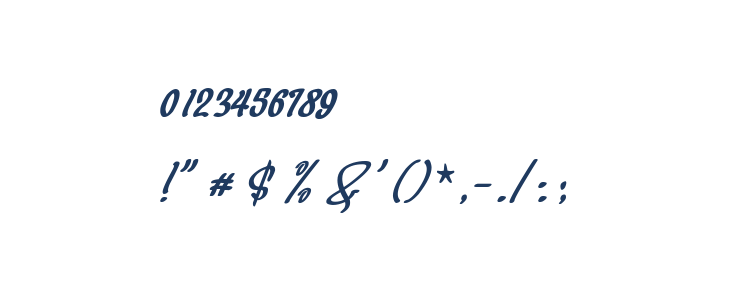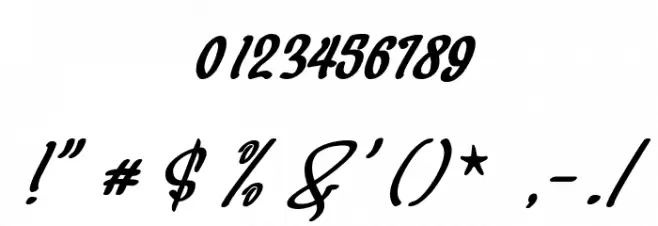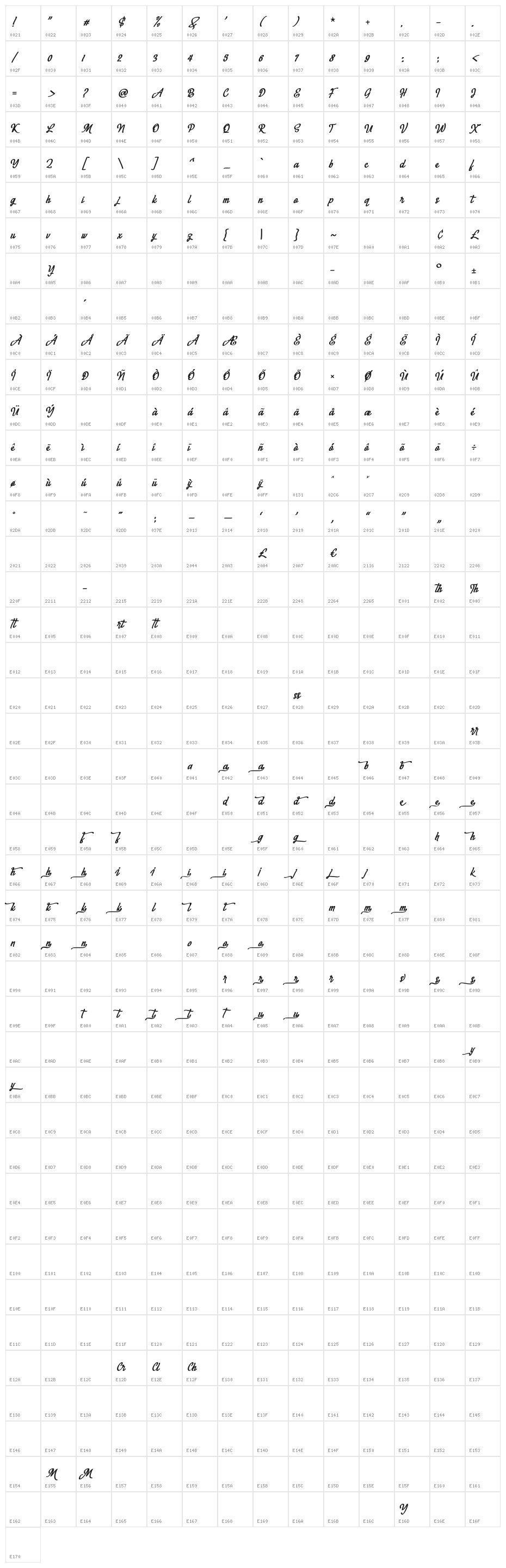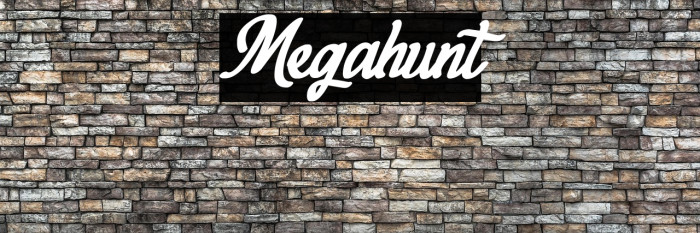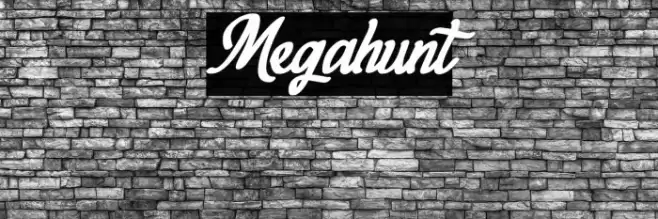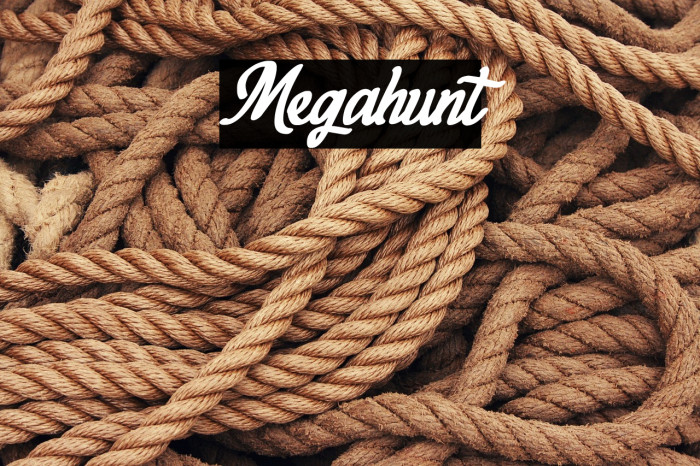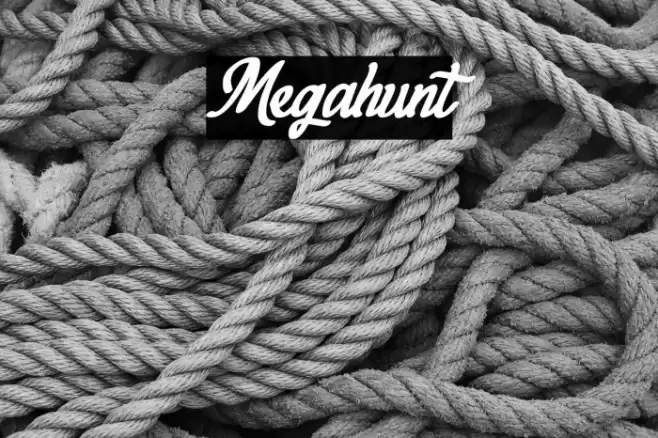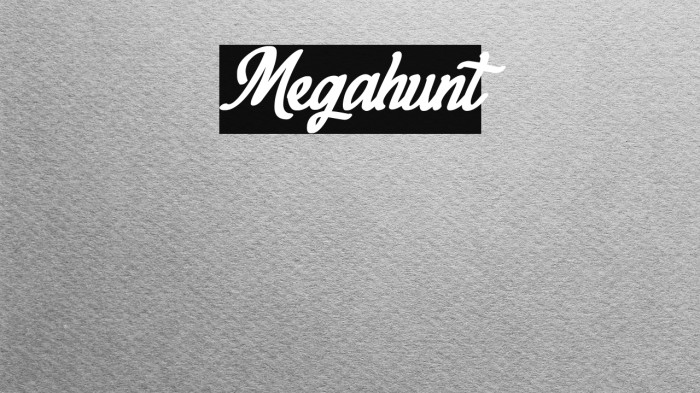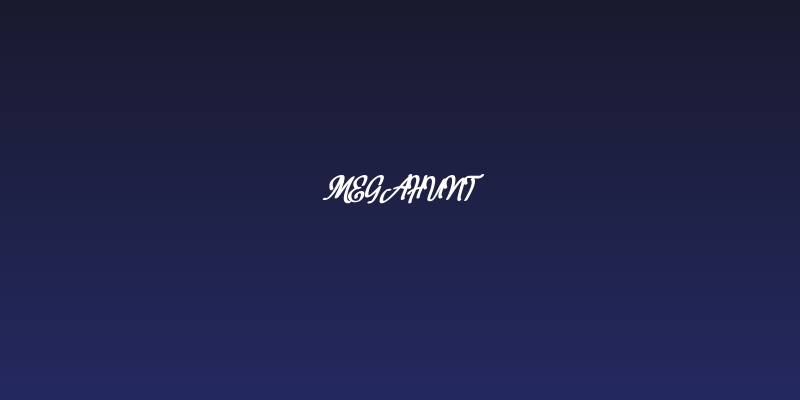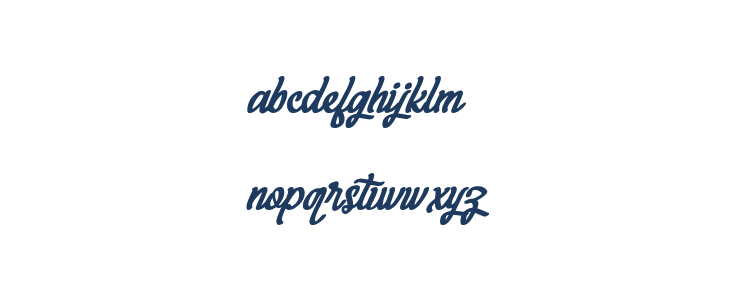
Megahunt Font
Megahunt Description
This font exhibits a bold and flowing script style, characterized by its elegant and cursive letterforms. The uppercase letters are particularly ornate, with sweeping curves and flourishes that give a sense of movement and grace. The lowercase letters maintain a consistent style, with smooth connections between characters, enhancing the fluidity of the text. Numbers and special characters are designed to match the overall aesthetic, ensuring a cohesive look across all elements. The font's boldness adds to its readability while maintaining an artistic flair, making it suitable for creative and expressive projects.